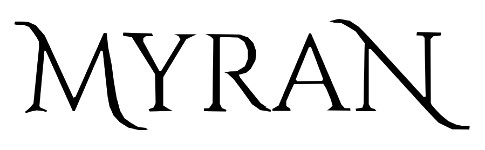
Hello! I’m going nuts trying to find this font, which has become somewhat popular on paranormal romance and fantasy book covers. None of the online font identifiers even get close.